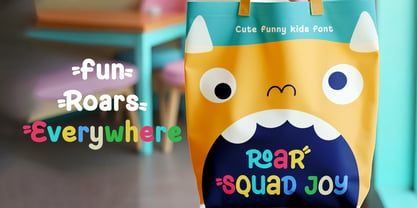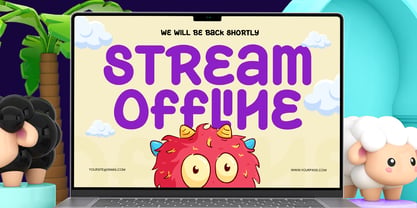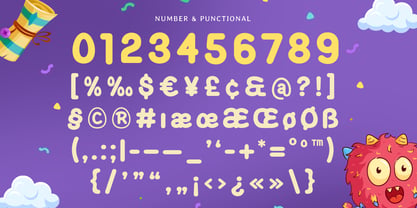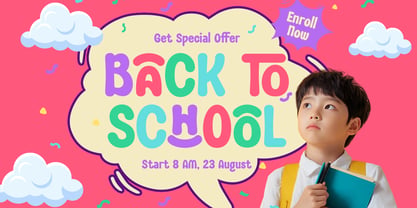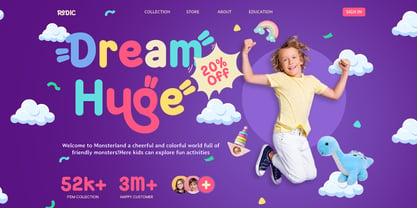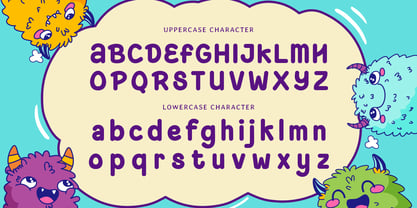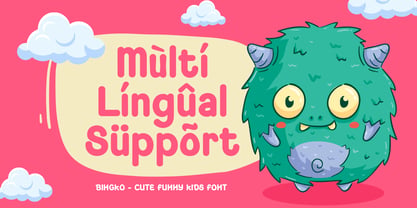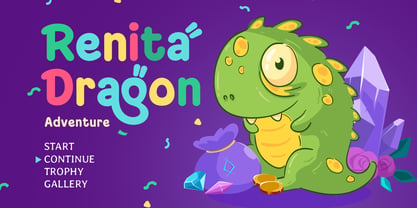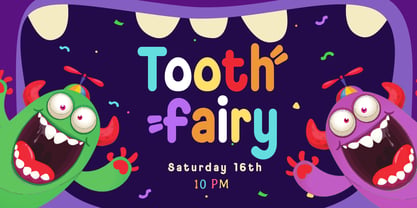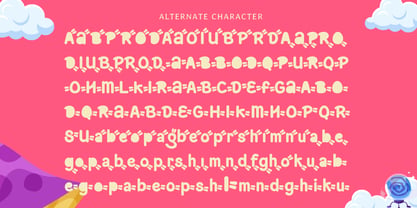
Bingko
by Sensatype Studio
The Bingko Font Family was designed by Zamroni Hamzah and published by Sensatype Studio. Bingko contains 1 styles. More about this family
Bingko is a cute funny kids font designed to bring smiles and playfulness to every project. With its bubbly curves, soft edges, and fun shapes, it’s the perfect choice for children’s designs, cartoons, and educational materials that need a friendly and joyful tone.
Each letter in Bingko is crafted with a sense of humor and imagination, making it ideal for posters, toy packaging, storybooks, and branding for kids’ products. It’s easy to read while keeping a creative, energetic personality that stands out in both digital and print formats.
Whether you’re creating a colorful logo or designing playful social media graphics, Bingko adds warmth and happiness to your designs with its cute and expressive character.
Bingko – Cute Funny Kids Font Features
• Cute and playful font with soft rounded shapes
• Perfect for kids’ branding, cartoons, and creative packaging
• Fun and expressive letterforms for a joyful appearance
• Great readability for posters, storybooks, and games
• Uppercase, lowercase, numerals, and punctuation included
• OpenType features for enhanced design flexibility
Multilingual support for Afrikaans, Albanian, Asu, Basque, Bemba, Bena, Breton, Chiga, Cornish, Dutch, English, Estonian, Filipino, Finnish, Friulian, Galician, German, Gusii, Indonesian, Irish, Italian, Kabuverdianu, Kalenjin, Kinyarwanda, Luo, Luxembourgish, Luyia, Machame, Makhuwa-Meetto, Makonde, Malagasy, Manx, Morisyen, North Ndebele, Nyankole, Oromo, Portuguese, Quechua, Romansh, Rombo, Rundi, Rwa, Samburu, Sango, Sangu, Scottish Gaelic, Sena, Shambala, Shona, Soga, Somali, Spanish, Swahili, Swedish, Swiss, and more.